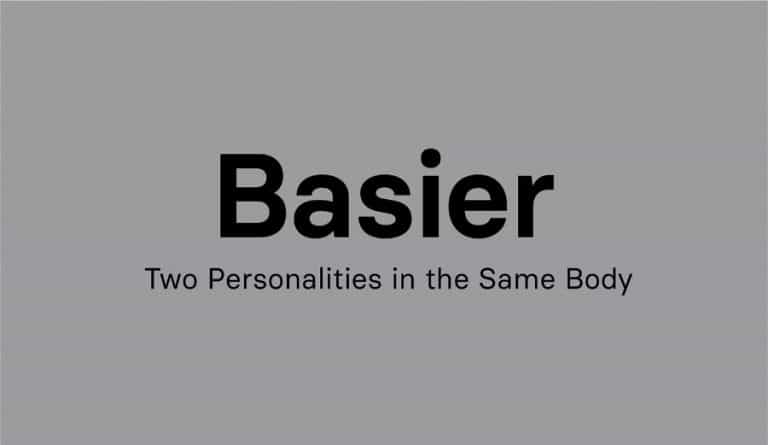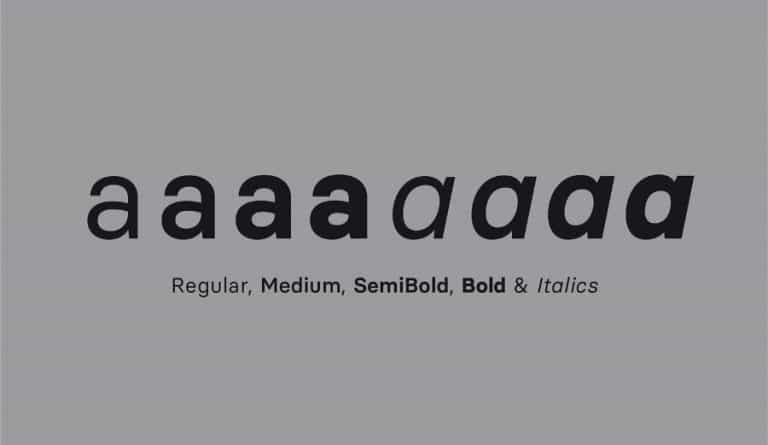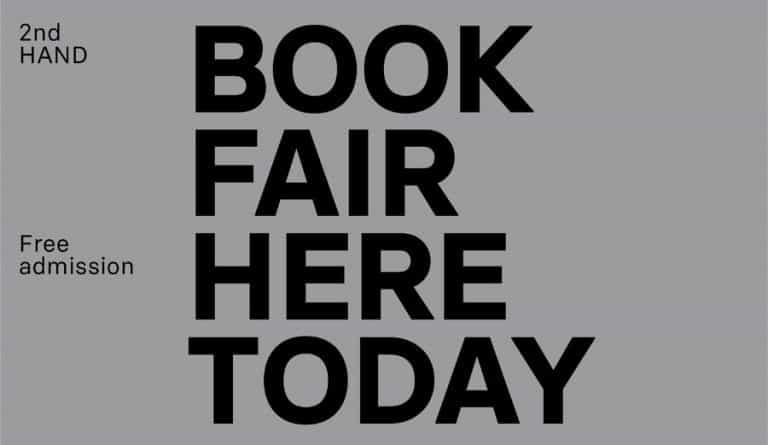
Welcome Basier Font! Basier Sans Font Family is a font family that takes its inspiration from International Style and has two variations, Circle & Square. Ideal for branding, logotypes editorial design as well as screen/web design applications!